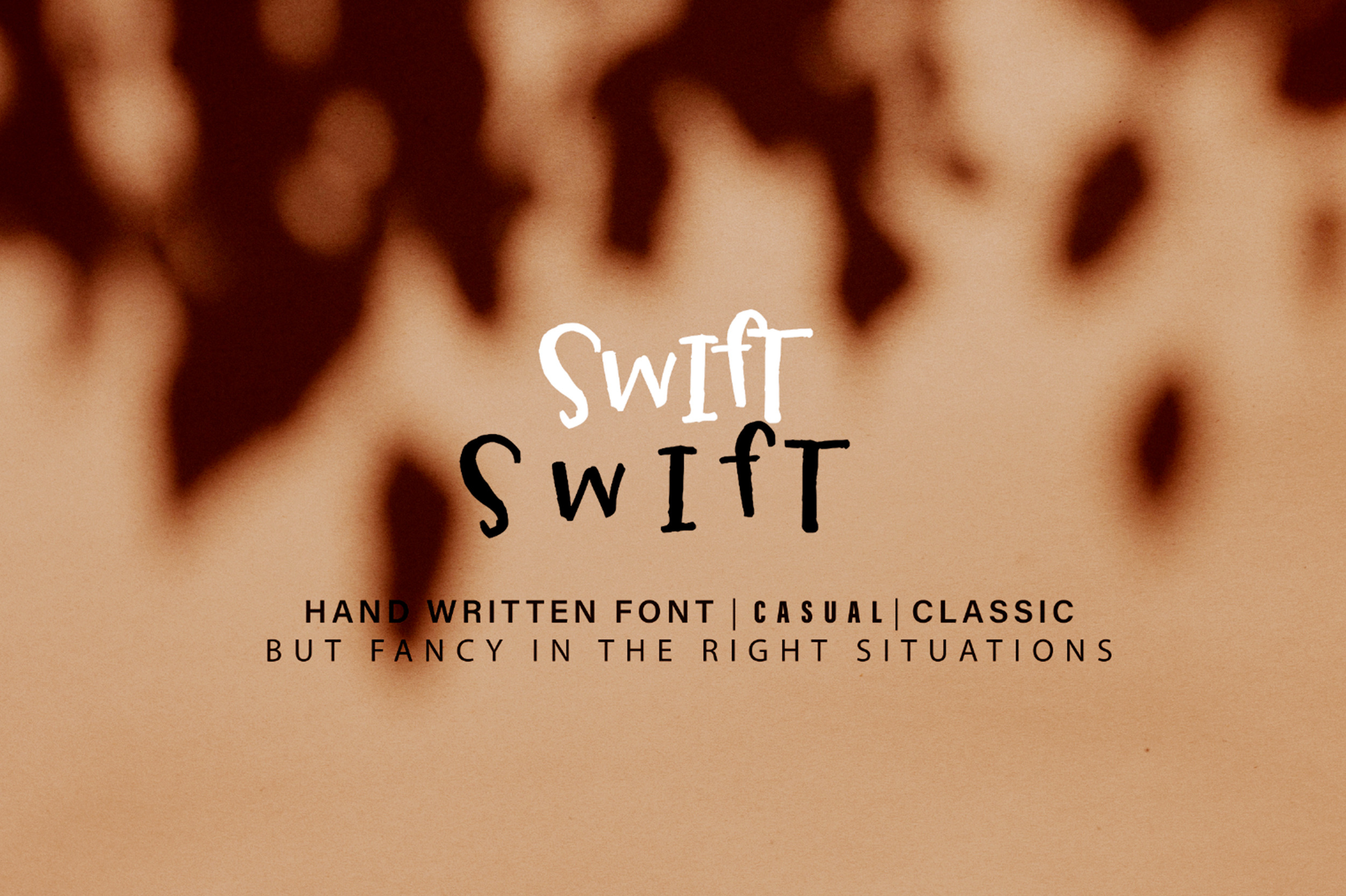
Swift French Marker Font + Squiggles
T.Swift font is classic versatile + handwritten (.ttf file). We created this by writing the font with marker several times, and selecting the best letter specimens. That being said, there’s some free marker eps swishes/ squiggles included in this package as well. Laisse ta trace!